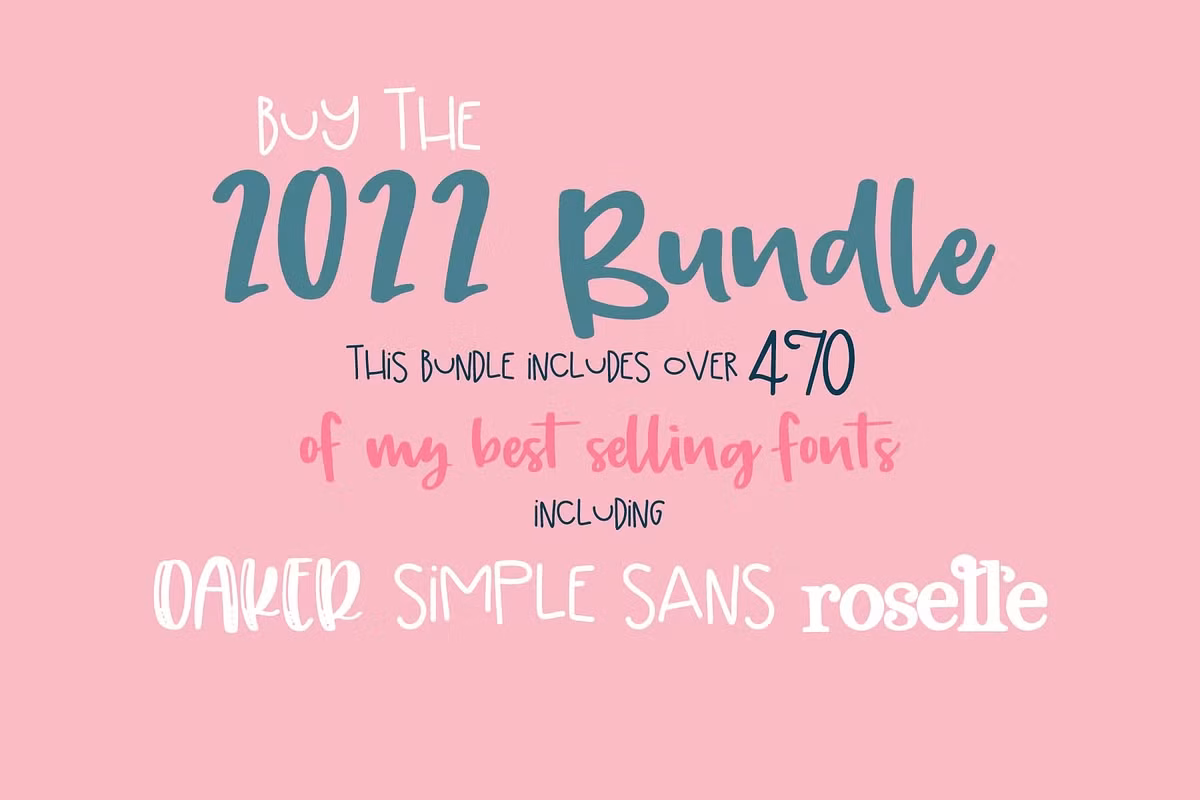
Buy the Store Bundle is perfect for comprehensive design projects, multi-brand campaigns, versatile marketing materials, complete brand identity systems, diverse publication needs, extensive web design projects, varied packaging applications, and comprehensive typography solutions.
What makes Buy the Store Bundle so exciting is its incredible versatility and extensive collection that provides designers with unlimited creative possibilities through hundreds of premium typefaces in one comprehensive package. This massive font collection features diverse styles ranging from elegant scripts to bold display fonts, ensuring perfect typography solutions for any project requirement. The bundle's comprehensive variety and exceptional value make it essential for design professionals seeking complete typographic freedom and creative flexibility.
The Buy the Store Bundle family includes over 470 premium fonts spanning multiple categories including serif, sans-serif, script, display, decorative, and specialty typefaces that provide designers with complete typographic libraries for unlimited creative applications.
Buy the Store Bundle Free Download offers designers unprecedented access to premium typography collections that represent exceptional value and creative potential for professional design work. This comprehensive package excels in applications where diverse typography needs require multiple font solutions, making it ideal for design agencies, creative studios, marketing departments, and freelance designers. The bundle's extensive variety makes it particularly valuable for businesses requiring consistent brand flexibility across multiple projects and diverse client requirements.
The carefully curated collection within Buy the Store Bundle ensures professional quality standards while providing maximum creative versatility across all included typefaces. Each font maintains excellent craftsmanship and design integrity, creating a library that supports professional design work across print, digital, and environmental applications. This quality consistency makes the bundle suitable for comprehensive branding projects requiring diverse yet cohesive typography solutions.
For professional design workflows, Buy the Store Bundle provides the perfect solution for organizations and designers seeking complete typographic independence through superior font collections. The bundle's comprehensive scope allows for unlimited creative expression while maintaining professional standards across all design applications where diverse typography enhances creative capability and project success. This extensive collection eliminates the need for individual font purchases while ensuring designers have access to premium typography for every conceivable design challenge and creative opportunity.